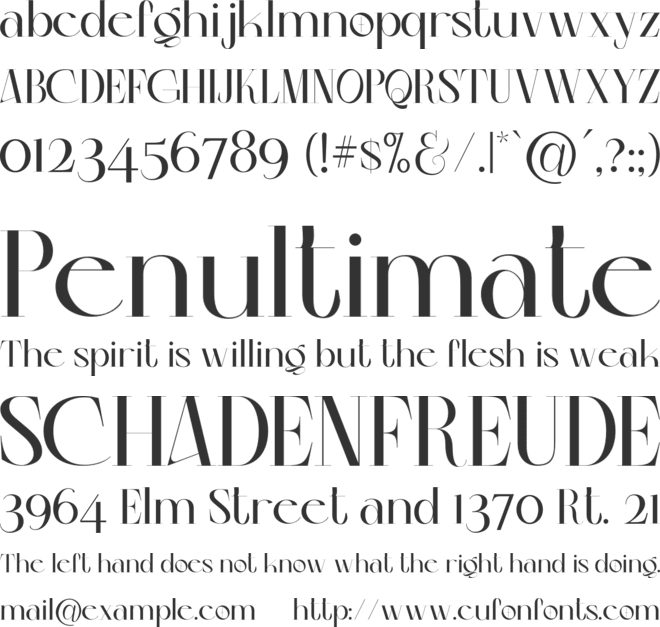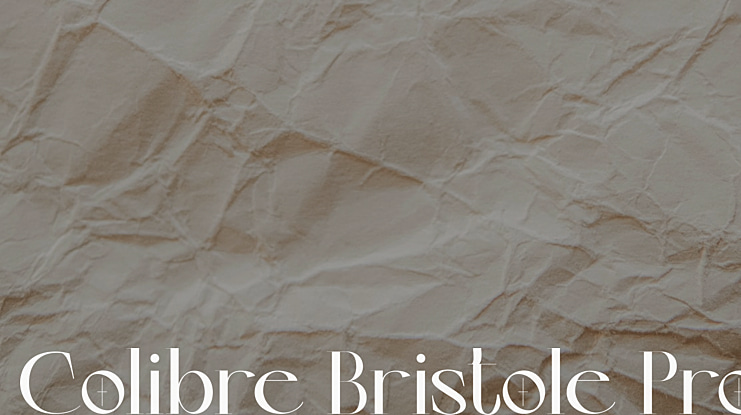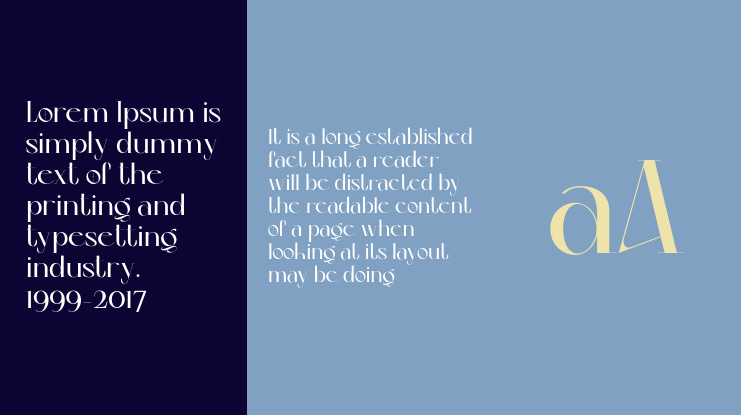
Colibre Bristole Pro Font
Introducing Colibre Bristole Pro, a sophisticated serif font collection meticulously designed with utmost precision. Colibre Bristole boasts a versatile range of 9 styles, spanning from thin to black. With its captivating repertoire of 49 ligatures, this font family takes your writing experience to a whole new level of interactivity.